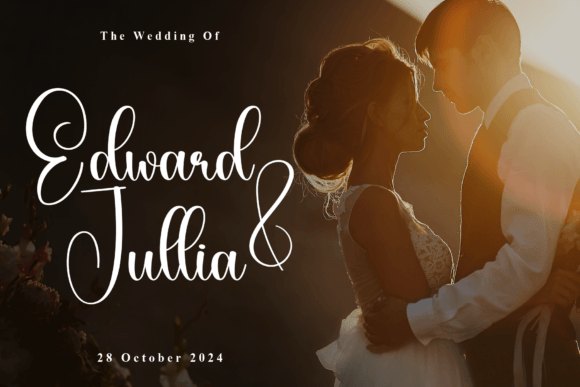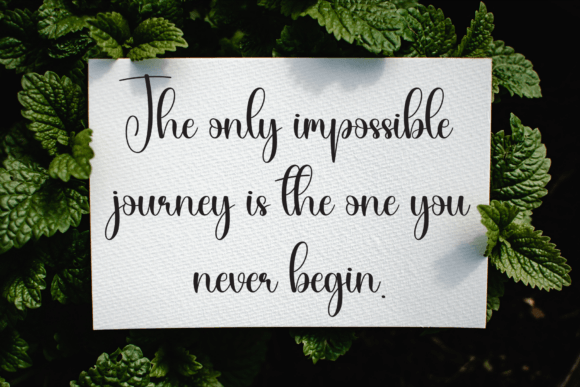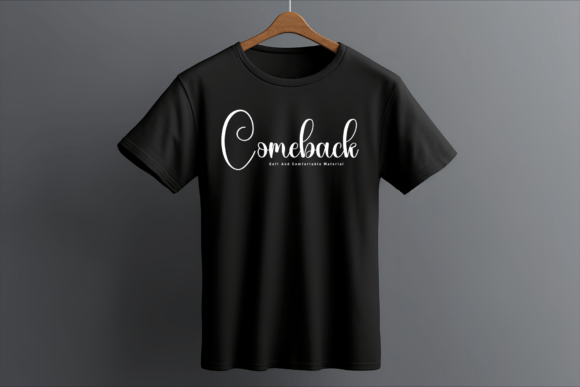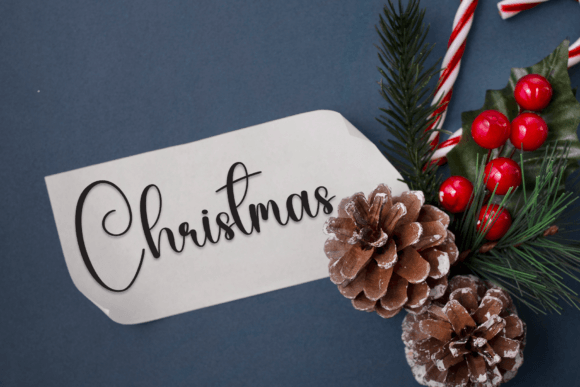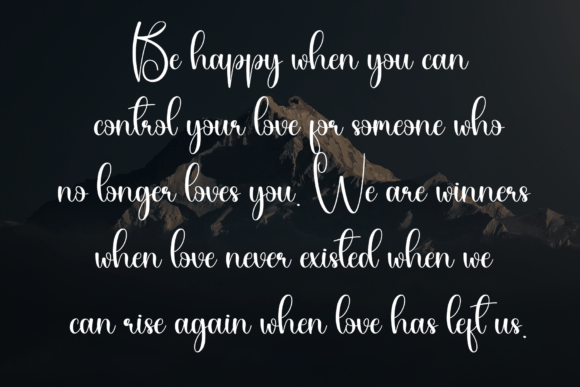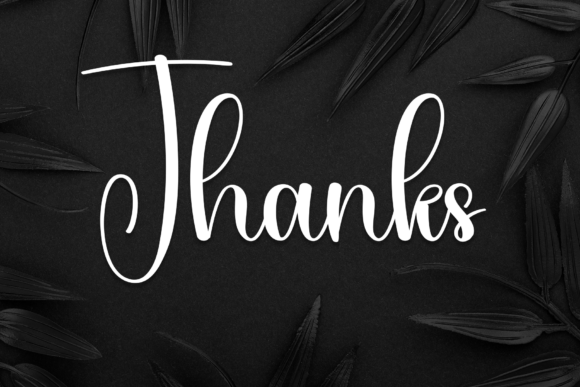
Introducing Blacksword Font: Elevate Your Designs with Elegance and Style
Are you a designer or crafter looking for a font that exudes elegance and sophistication? Look no further than Blacksword Font, a stylish and incredibly elegant script font that is sure to take your designs to the next level. With its beautiful, handwritten aesthetic, Blacksword Font is perfect for a variety of design projects, including wedding invitations, thank you cards, quotes, greeting cards, logos, business cards, and more.
The Characteristics of Blacksword Font
Blacksword Font is a script font that boasts a range of characteristics that make it both versatile and visually appealing. Its elegant, cursive strokes are perfect for adding a touch of sophistication to any design, while its clear and legible lettering ensures that your message is communicated effectively. Whether you’re looking to create a romantic wedding invitation or a professional business card, Blacksword Font is the perfect choice.
Why Choose Blacksword Font?
So, why should you choose Blacksword Font for your design projects? Here are just a few reasons:
• Elegance and sophistication: Blacksword Font is the epitome of elegance and sophistication, making it perfect for designs that require a touch of refinement.
• Versatility: With its clear and legible lettering, Blacksword Font can be used for a wide range of design projects, from wedding invitations to business cards.
• Handwritten aesthetic: Blacksword Font has a beautiful, handwritten aesthetic that adds a personal touch to any design.
• Easy to read: Despite its elegant and cursive strokes, Blacksword Font is easy to read, making it perfect for designs that require clear communication.
Using Blacksword Font in Your Designs
Blacksword Font is incredibly easy to use in your designs, and can be applied to a wide range of projects. Here are a few ideas to get you started:
• Wedding invitations: Blacksword Font is perfect for creating beautiful and elegant wedding invitations that set the tone for the big day.
• Thank you cards: Add a touch of sophistication to your thank you cards with Blacksword Font, perfect for expressing gratitude to friends and family.
• Quotes and posters: Use Blacksword Font to create stunning quotes and posters that showcase your favorite phrases and sayings.
• Greeting cards: Blacksword Font is perfect for creating beautiful and elegant greeting cards for special occasions, such as birthdays and holidays.
• Logos and business cards: Use Blacksword Font to create professional and elegant logos and business cards that make a lasting impression.
Tips for Getting the Most Out of Blacksword Font
To get the most out of Blacksword Font, here are a few tips to keep in mind:
• Experiment with different sizes and colors: Blacksword Font looks great in a range of sizes and colors, so don’t be afraid to experiment and find the perfect combination for your design.
• Pair with other fonts: Blacksword Font pairs well with a range of other fonts, so try combining it with other fonts to create a unique and visually appealing design.
• Use it sparingly: While Blacksword Font is elegant and sophisticated, it can be overwhelming if used too much. Use it sparingly to add a touch of elegance to your design.
In conclusion, Blacksword Font is a stylish and incredibly elegant script font that is perfect for designers and crafters looking to add a touch of sophistication to their designs. With its beautiful, handwritten aesthetic and clear and legible lettering, Blacksword Font is versatile and easy to use, making it perfect for a wide range of design projects. Whether you’re creating wedding invitations, thank you cards, quotes, greeting cards, logos, business cards, or more, Blacksword Font is the perfect choice.